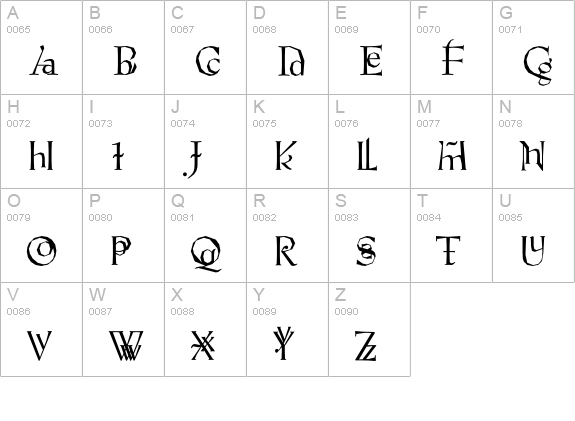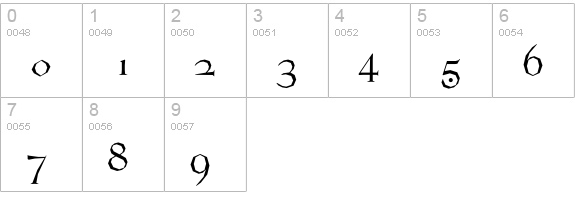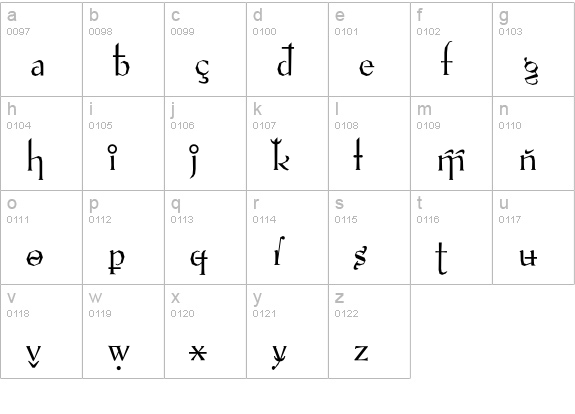
PompousCircumstance-Chiseled Font Details
PompousCircumstance-Chiseled font exudes an air of sophistication and elegance with its meticulously crafted chiseled design. Each letter is imbued with a sense of grandeur and pomp, making it perfect for projects that require a touch of extravagance. The sharp edges and intricate details of this font command attention and add a regal quality to any text. What sets PompousCircumstance-Chiseled font apart is not only its striking appearance, but also the fact that it is available for free. Yes, you read that right – this exquisite font can be downloaded at no cost from FontsMarket.com. Whether you are working on invitations, posters, or branding materials, PompousCircumstance-Chiseled font will elevate your designs to new heights of sophistication and style. Download it today and add a touch of grandeur to your projects.